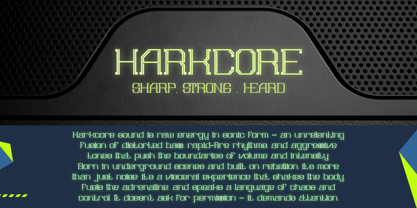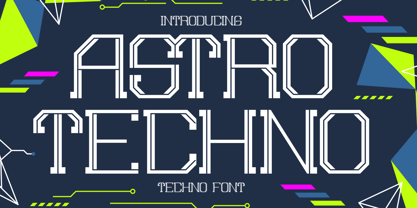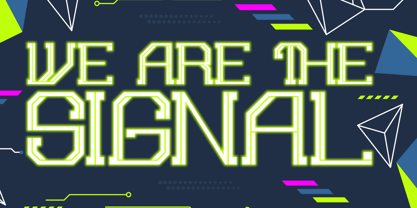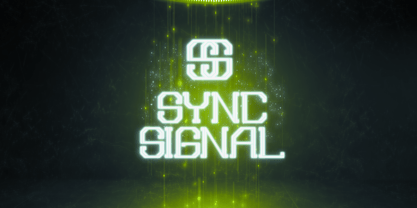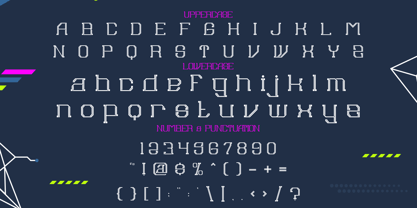
Astro Techno
by Shanaf
The Astro Techno Font Family was designed by Yesie Erma Yunita and published by Shanaf. Astro Techno contains 1 styles. More about this family
Unleash the pulse of the future with Astro Techno, a high-impact display font engineered for the digital age. Inspired by sci-fi aesthetics, electronic circuits, and retro-futuristic vibes, this font delivers a bold and angular character design that blends geometric precision with cybernetic flair. Each letterform in Astro Techno is constructed with segmented strokes and layered contours, creating a sense of motion and rhythm. The unique techno-inspired styling is amplified by neon color palettes and digital signal motifs, perfect for delivering messages that demand attention. Uppercase and lowercase characters are meticulously aligned to maintain structural harmony, while alternate forms and stylized punctuation enhance typographic versatility.
Astro Techno is the ultimate visual asset for futuristic branding, music festival posters, gaming interfaces, tech startups, and digital product launches. Whether you're crafting an album cover, designing a cyberpunk movie title, or building a UI concept, this typeface communicates strength, innovation, and energy. With complete support for numbers, punctuation, and special characters, Astro Techno brings a cohesive aesthetic that resonates across modern design touchpoints. Step into the signal and broadcast your vision with a font that doesn't just speak—but transmits.
Designers: Yesie Erma Yunita
Foundry: Shanaf